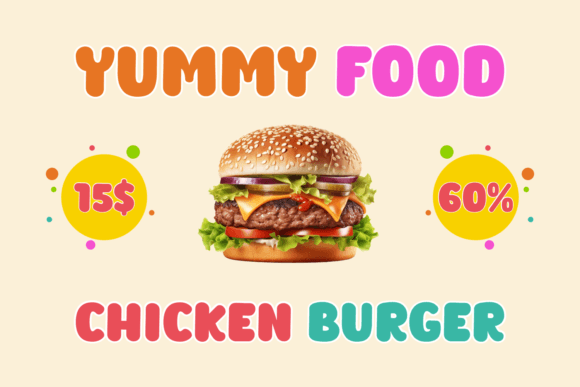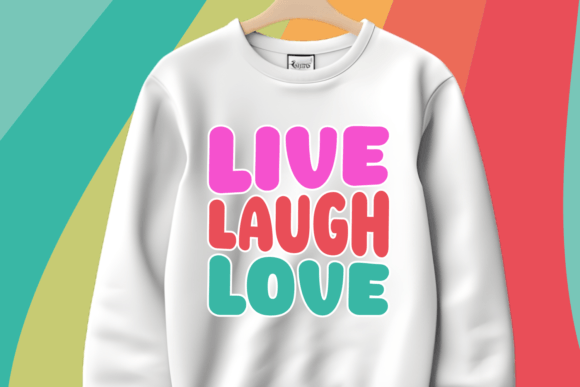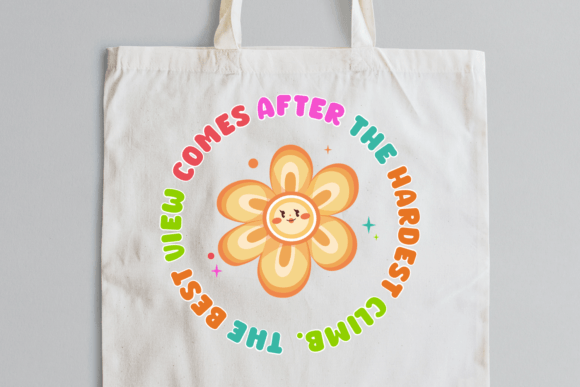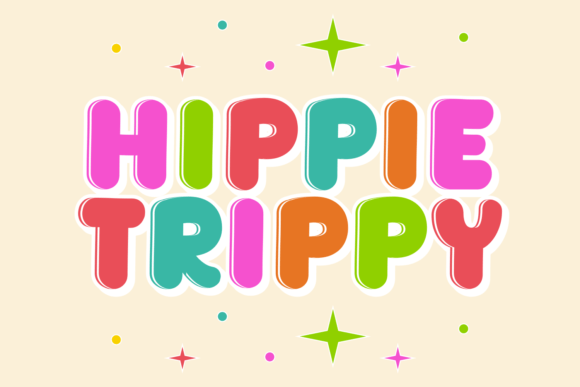
Introduction to Retro Kings Font
Have you ever stared at a blank canvas, eager to bring your creative vision to life, but struggling to find the perfect font to match your artistic intent? That’s exactly what happened to me, until I stumbled upon the Retro Kings Font – a game-changing design resource that has revolutionized my creative process. This high-quality typeface is a masterful blend of nostalgia and modern flair, making it the ultimate go-to font for designers seeking to add a touch of whimsy to their projects.
With its unique combination of 70s, 80s, and 90s styles, the Retro Kings Font is a dream come true for designers who crave a design that’s both retro and modern. Whether you’re working on a free download project or creating a commercial campaign, this font is sure to bring a touch of elegance and sophistication to your work. Plus, its transparent background makes it seamless to use on various apps like Canva and Procreate.
Retro Kings Font
- High-quality design resource ideal for creative projects, offering a unique and nostalgic aesthetic.
- Features a large character set, including uppercase and lowercase letters, numbers, and special characters.
Honest Review: Retro Kings Font
I recently had the chance to work with the Retro Kings Font, a design resource that’s perfect for any creative project. This font is a real showstopper, and I’m excited to share my thoughts on it.
- High-quality design: The Retro Kings Font is incredibly well-crafted, with a unique blend of vintage and modern elements.
- Transparent background: The transparent background allows for seamless integration with any design, giving you complete creative control.
- Perfect for retro-inspired projects: This font is a must-have for any project that requires a touch of nostalgia and charm.
While I love the Retro Kings Font, there are a few limitations to be aware of:
- Limited font weights: There are only a few font weights available, which may limit your design options.
- No italic or bold styles: This font doesn’t come with italic or bold styles, which may be a drawback for some designers.
Overall, I’m impressed with the Retro Kings Font and would highly recommend it to designers working on retro-inspired projects. While it has its limitations, the quality and uniqueness of this font make it a valuable addition to any design library.
Retro Kings Font
The Retro Kings Font is a high-quality design resource ideal for creative projects that demand a touch of nostalgia. With a transparent background, this font can be easily incorporated into various design platforms.
Tips for Getting the Most Out of Retro Kings Font
Experiment with different font sizes, colors, and combinations to create unique and eye-catching designs. Use the font’s transparent background to create layered designs or to add a touch of sophistication to your projects.
The Retro Kings Font is perfect for creative projects that require a vintage or nostalgic feel. Use it for branding, advertising, or packaging design to give your products a unique and memorable identity.